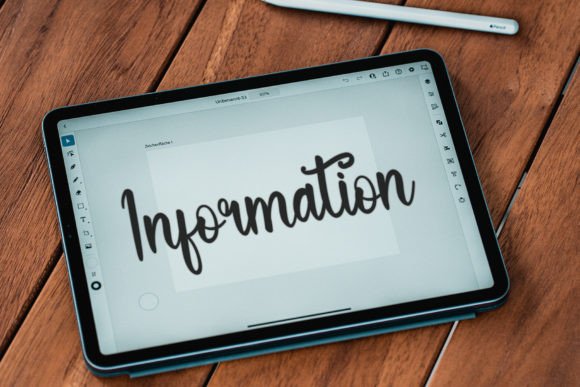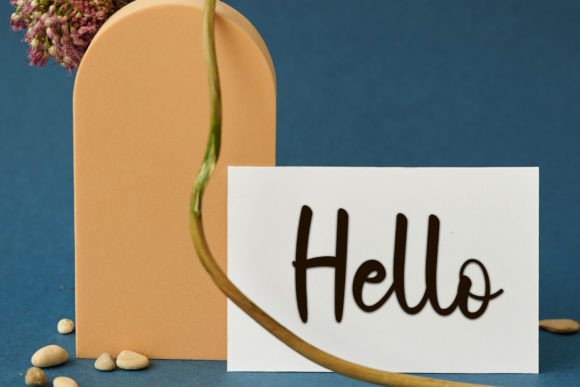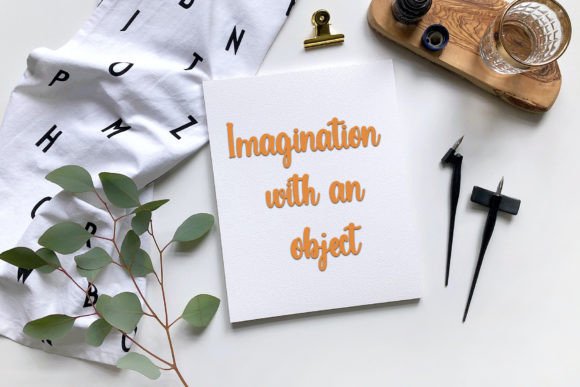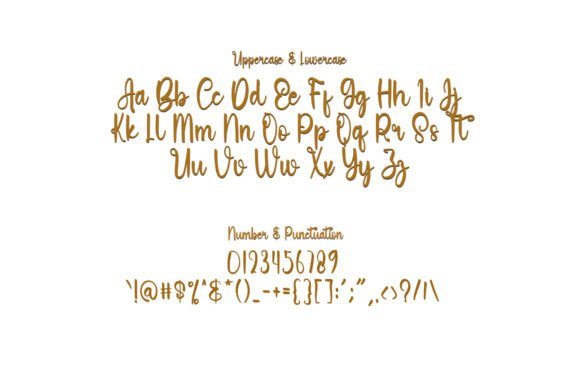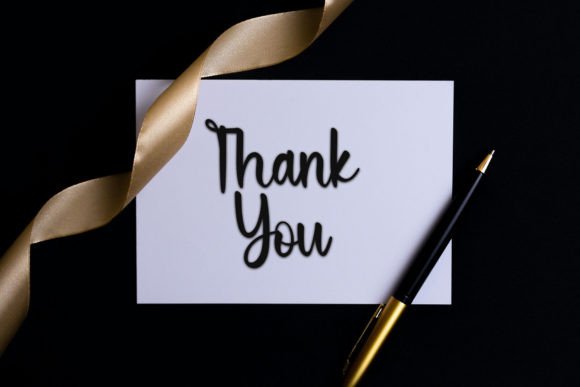
The Perfect Blend of Elegance and Whimsy: Discover Holiday Font
Have you ever found yourself stuck in front of a blank canvas, trying to bring a creative idea to life? You’ve got the concept, the inspiration, but somehow, it just isn’t translating onto paper. We’ve all been there, and it’s in those moments that we crave the perfect tool to help us express our vision. That’s where the Holiday Font comes in – a beautifully crafted handwritten font that adds a touch of elegance to any project.
Designed to elevate your creative projects, the Holiday Font is perfect for Instagram posts, DIY crafts, and even calligraphy scripts. With its unique blend of playfulness and sophistication, this font will transform your ideas into stunning pieces of art that are sure to impress. Whether you’re a seasoned designer or a creative enthusiast, the Holiday Font is a valuable addition to your toolkit, offering endless possibilities for self-expression and artistic exploration.
Holiday Font Key Features
- Unique Characteristics: The font features a unique blend of modern and traditional elements, with intricate details and ornaments that evoke a festive atmosphere.
Holiday Font Review
I recently had the chance to work with the Holiday Font, and I have to say it’s a unique addition to any design project. ✨ The font’s playful and festive vibe is perfect for holiday-themed projects, especially those involving Christmas, New Year’s, or other winter celebrations.
- The font’s bold and thick strokes add a fun, hand-drawn feel that’s perfect for creating a cozy atmosphere.
- The Holiday Font’s versatility allows it to work well in both digital and print projects, from social media graphics to holiday cards and more.
However, I do have a few concerns. ⚠️ The font’s limited character set may make it difficult to use for longer pieces of text, and the font’s bold style can sometimes make it hard to read for those with visual impairments.
Overall, I’d say the Holiday Font is a great choice for designers who need a fun and festive font for their holiday projects. While it has some limitations, its unique style and versatility make it a valuable addition to any design library.
Tips for Getting the Most Out of Holiday Font
Use Holiday Font to add a festive touch to your designs, especially during the holiday season. Experiment with different font sizes, colors, and styles to create a unique look.
Common use cases for Holiday Font include:
- Christmas and New Year’s Eve invitations and cards.
- Thanksgiving and Halloween-themed designs.
- Winter wonderland and snowflake-inspired designs.